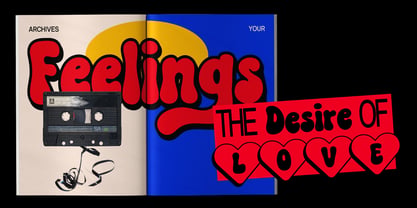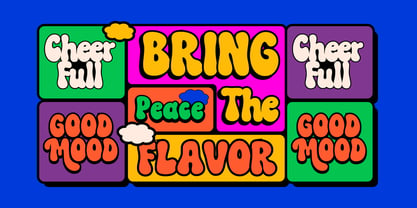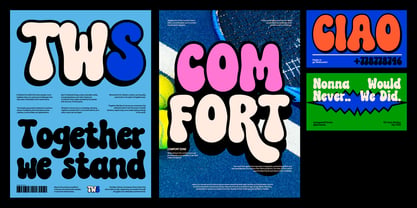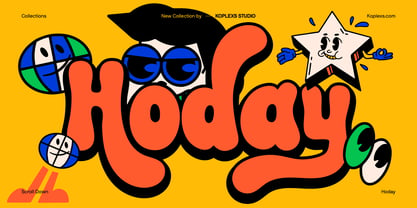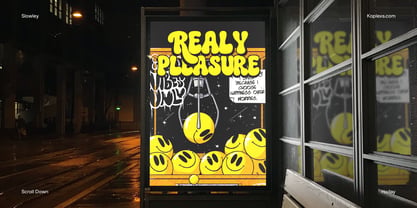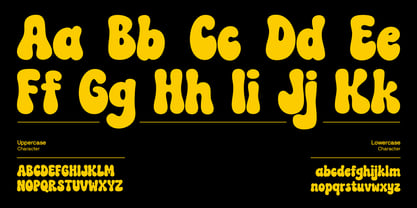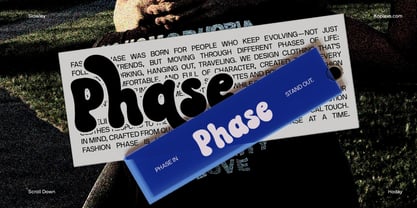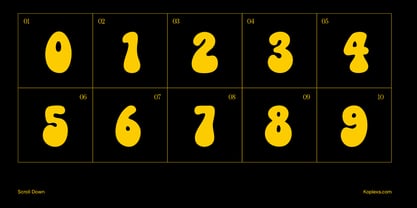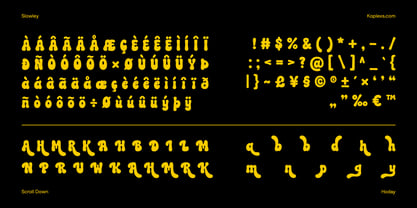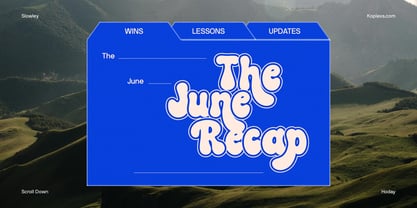
Hoday
Hoday Font
Bold Bubble Display Font with Retro Playful Energy
Hoday Font is a bold and playful display typeface designed to make every word stand out. Featuring chunky bubble-inspired letterforms, smooth rounded curves, and a strong retro personality, this font brings a fun, energetic, and eye-catching presence to any creative project.
Inspired by vintage pop graphics, groovy typography, cartoon aesthetics, and modern street culture, Hoday Font delivers the perfect balance between nostalgia and contemporary design. Its thick shapes and expressive forms create a powerful visual impact, making it an excellent choice for headlines, branding, packaging, posters, and promotional materials.
The font was carefully crafted to capture a cheerful and confident character while maintaining readability across a variety of applications. Whether used in large-format advertising or digital content, Hoday Font instantly attracts attention and creates memorable visual experiences.